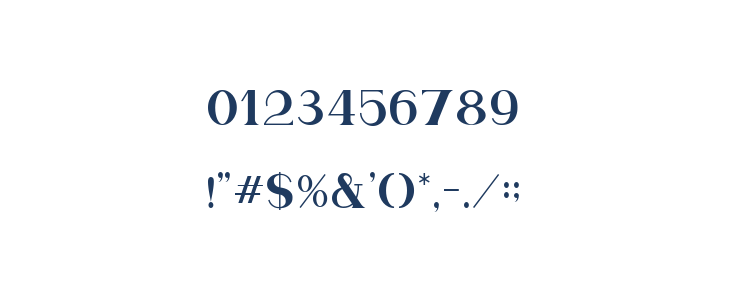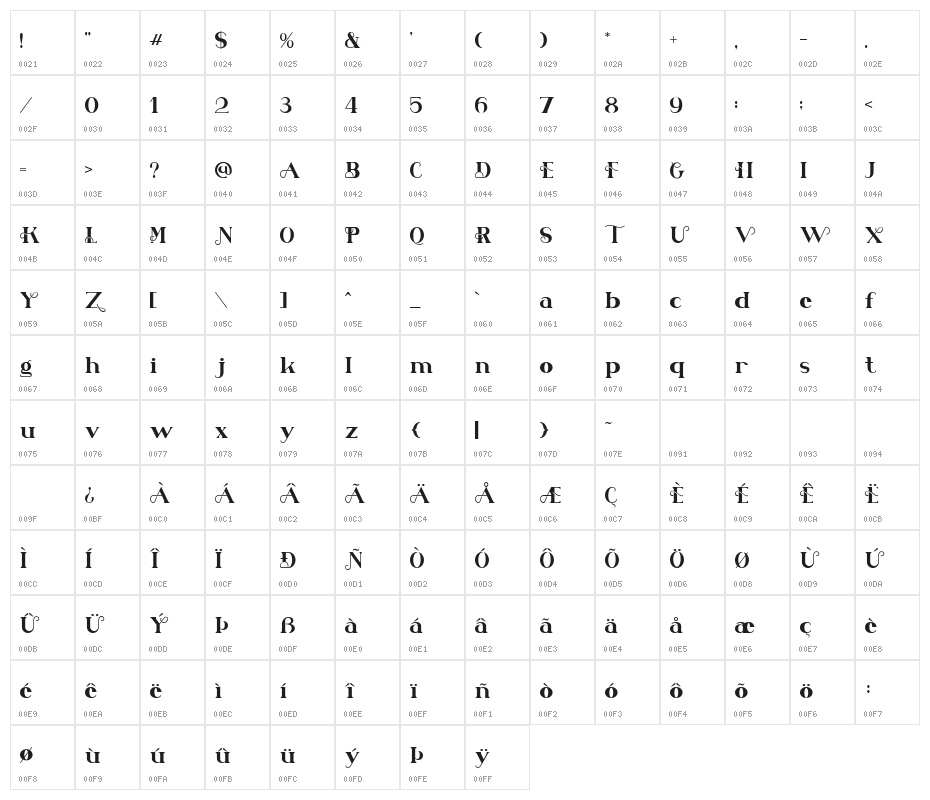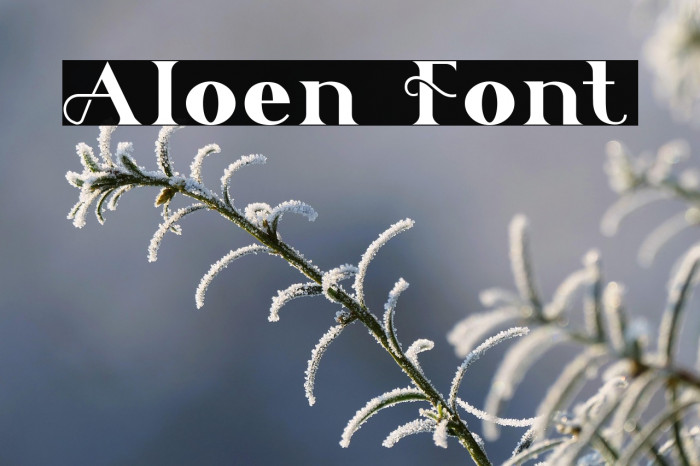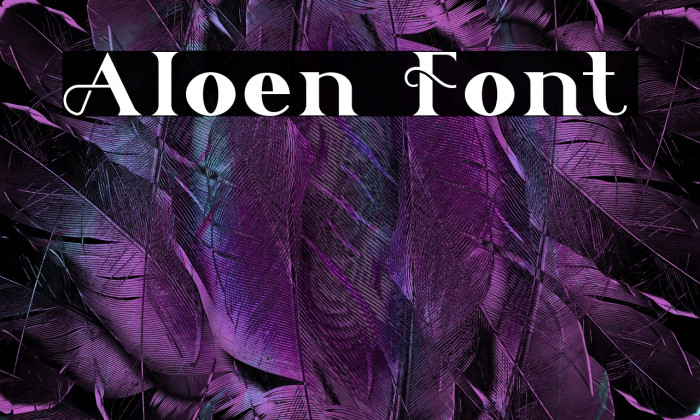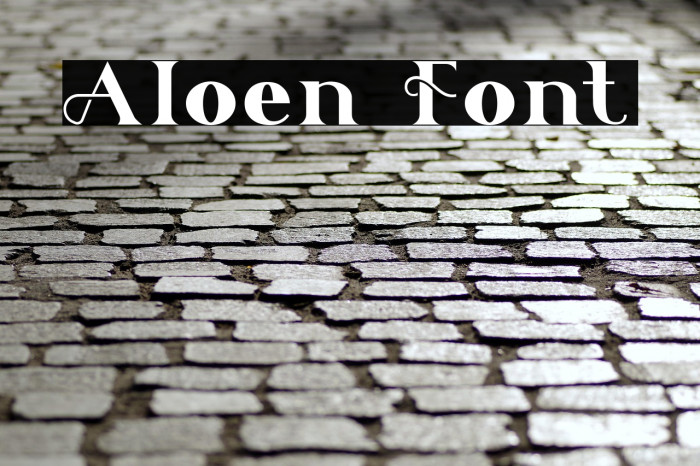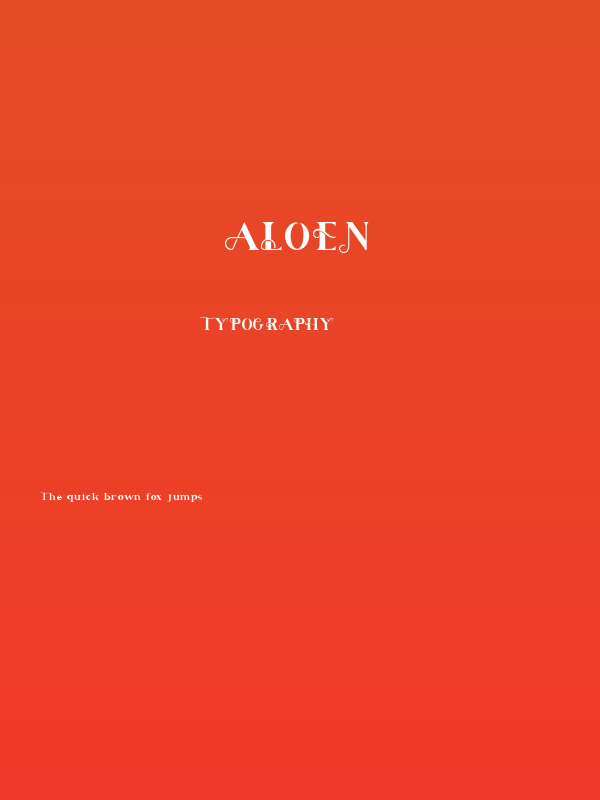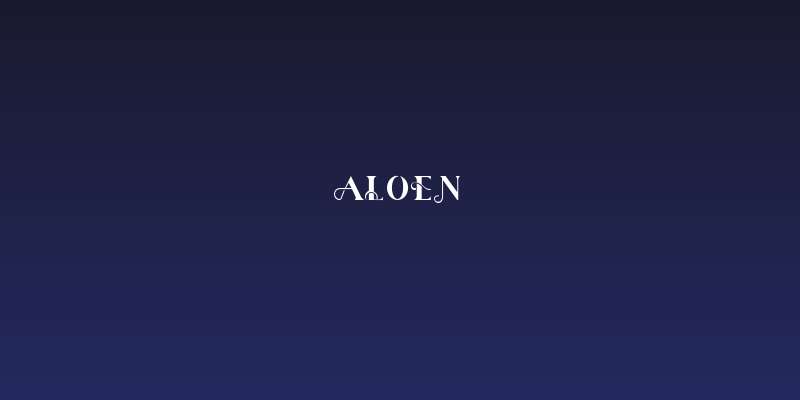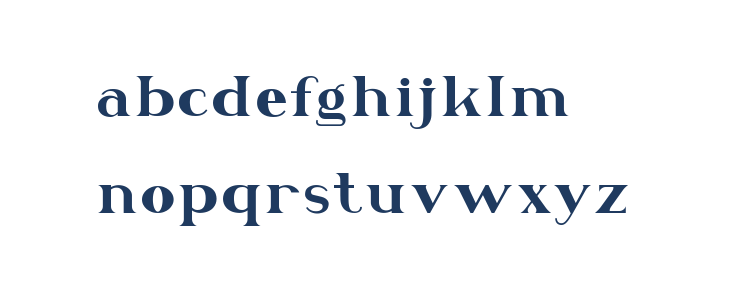
Aloen Font
Aloen Description
This font features a unique blend of classic serif elements with decorative flourishes, creating a distinctive and elegant appearance. The uppercase letters are particularly ornate, with intricate loops and swirls that add a touch of sophistication. The lowercase letters maintain a more traditional serif style, providing a balanced contrast to the decorative uppercase. The numerals are bold and clear, ensuring readability while maintaining the font's overall aesthetic. Special characters are designed with similar attention to detail, making them suitable for various design contexts.
| Proposed Projects | Ideal for wedding invitations, luxury branding, editorial design, and high-end product packaging. |